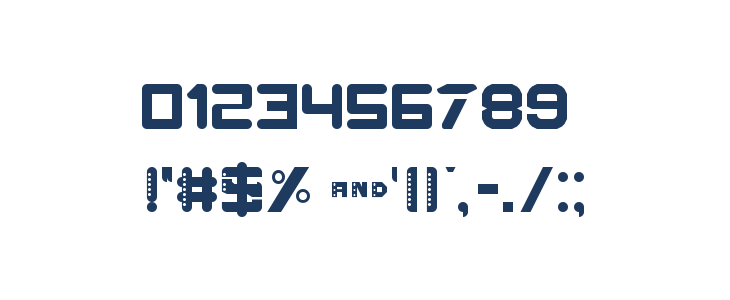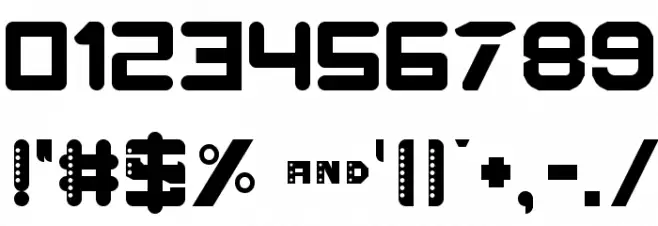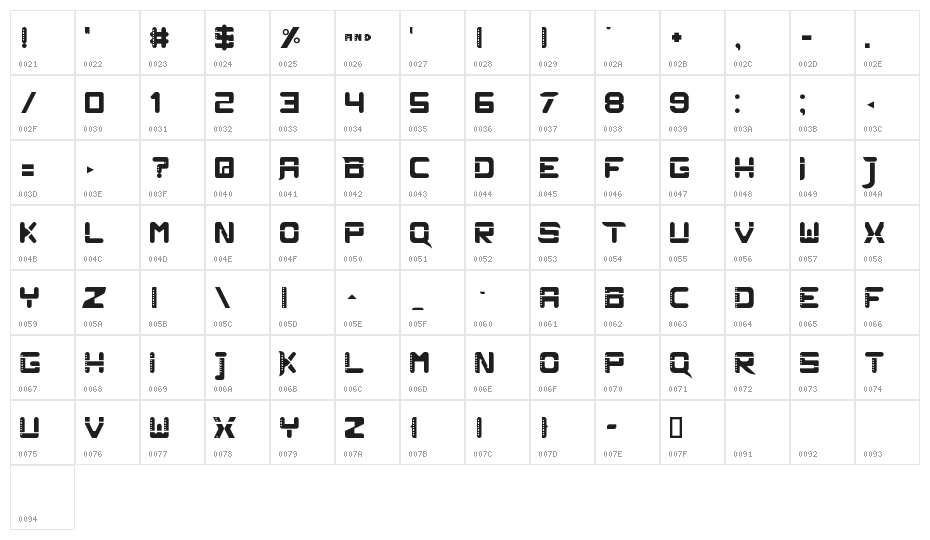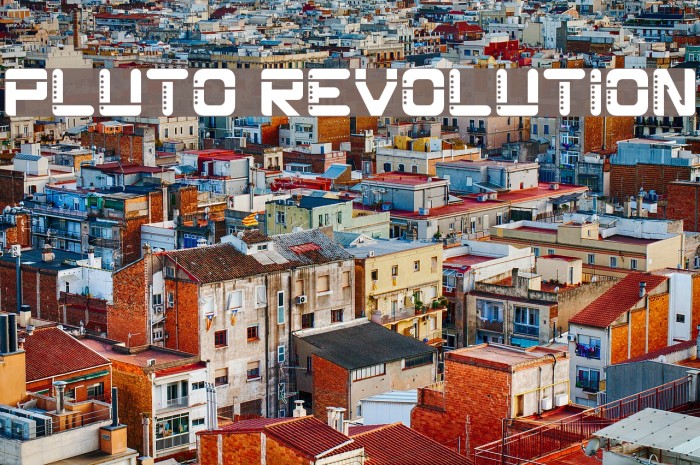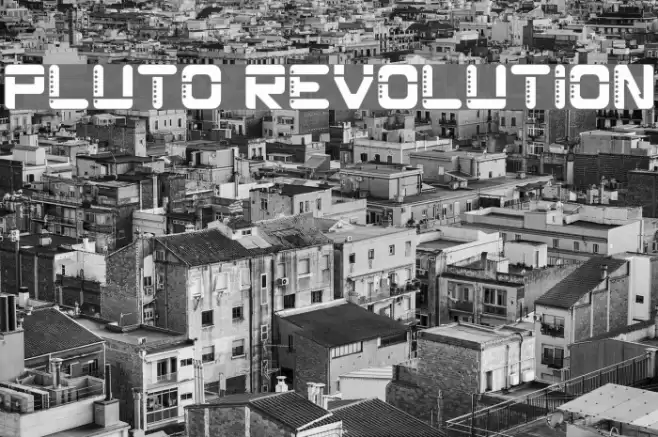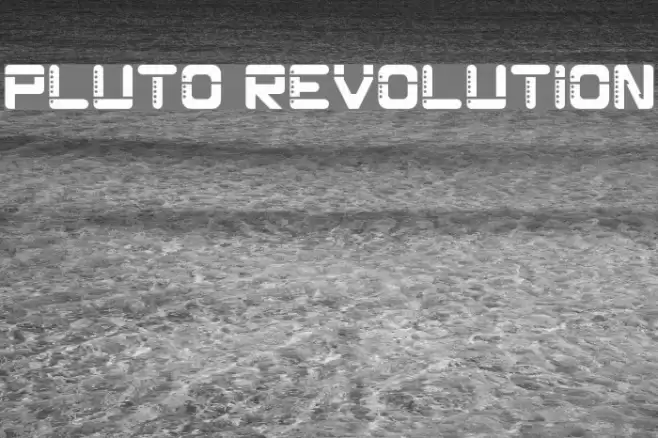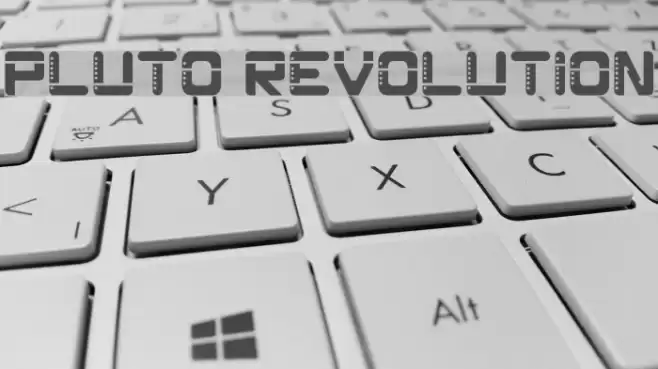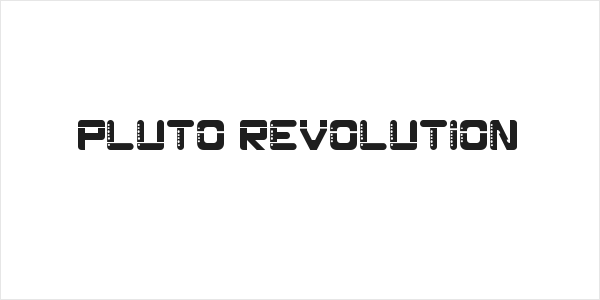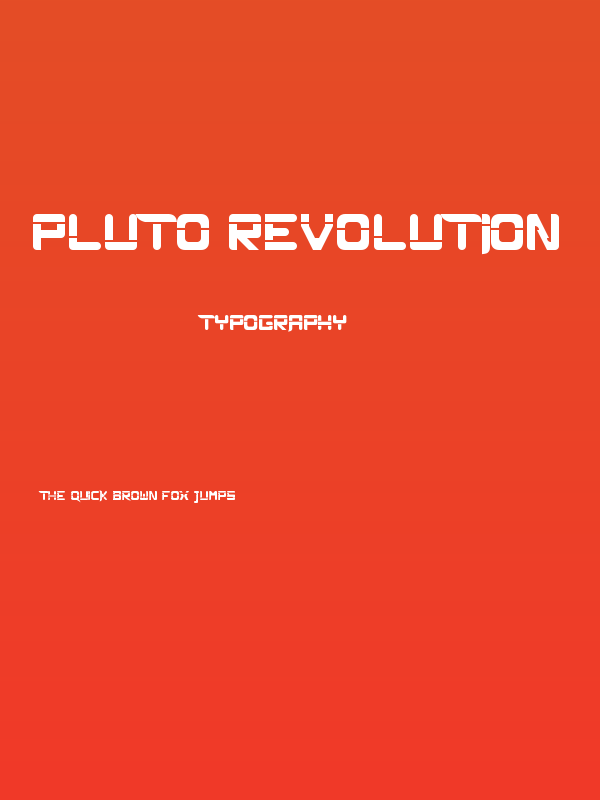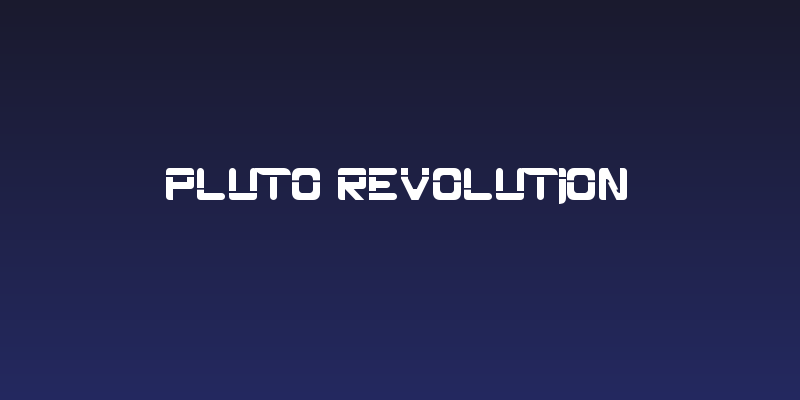
Pluto Revolution Font
Pluto Revolution Description
This font exhibits a futuristic and bold design, characterized by its geometric and angular shapes. The uppercase letters are distinct with sharp edges and a consistent stroke width, giving a sense of uniformity and strength. The lowercase letters maintain the same boldness, ensuring readability while adding a unique flair with their angular cuts. The numbers follow the same design principles, making them easily distinguishable and visually appealing. Special characters are designed to match the overall aesthetic, ensuring a cohesive look across all glyphs. The font's style is reminiscent of digital or sci-fi themes, making it suitable for projects that require a modern and edgy appearance.
| Proposed Projects | Perfect for sci-fi themed projects, digital interfaces, video game graphics, and modern branding. |